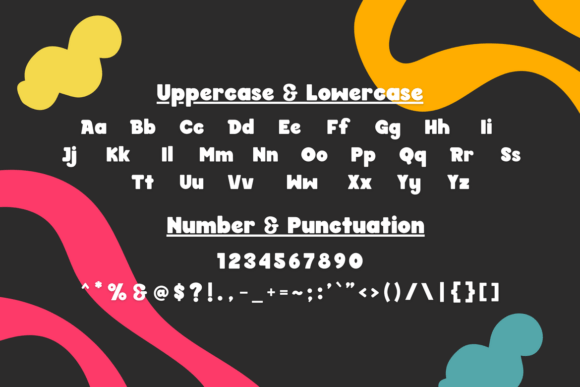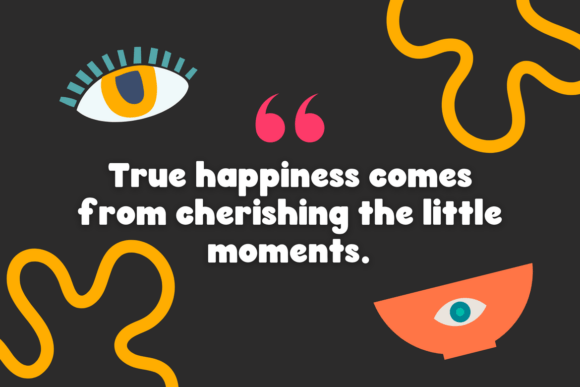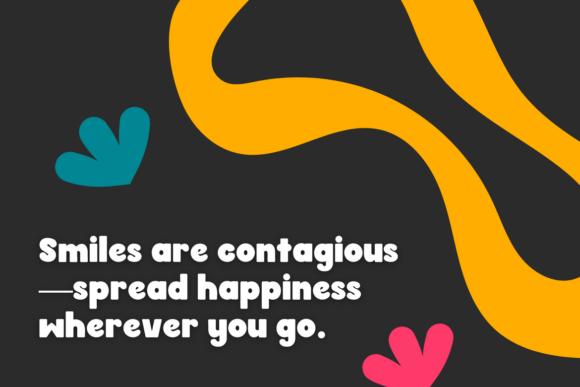
Introduction to Jenaka Font
Jenaka is a typographic style characterized by its thick, heavy strokes, which make it stand out from regular typefaces.
It can evoke a feeling of confidence and urgency, making it an effective choice for both print and digital media Whether in marketing materials, presentations, or web design, bold font helps convey a message with impact, ensuring that essential details are noticed and remembered.
Key Features of Jenaka Font
Why Choose Jenaka Font?
Jenaka Font offers exceptional quality and versatility, making it a valuable addition to your design toolkit. Whether you’re creating for personal projects or commercial use, Jenaka Font delivers professional results.